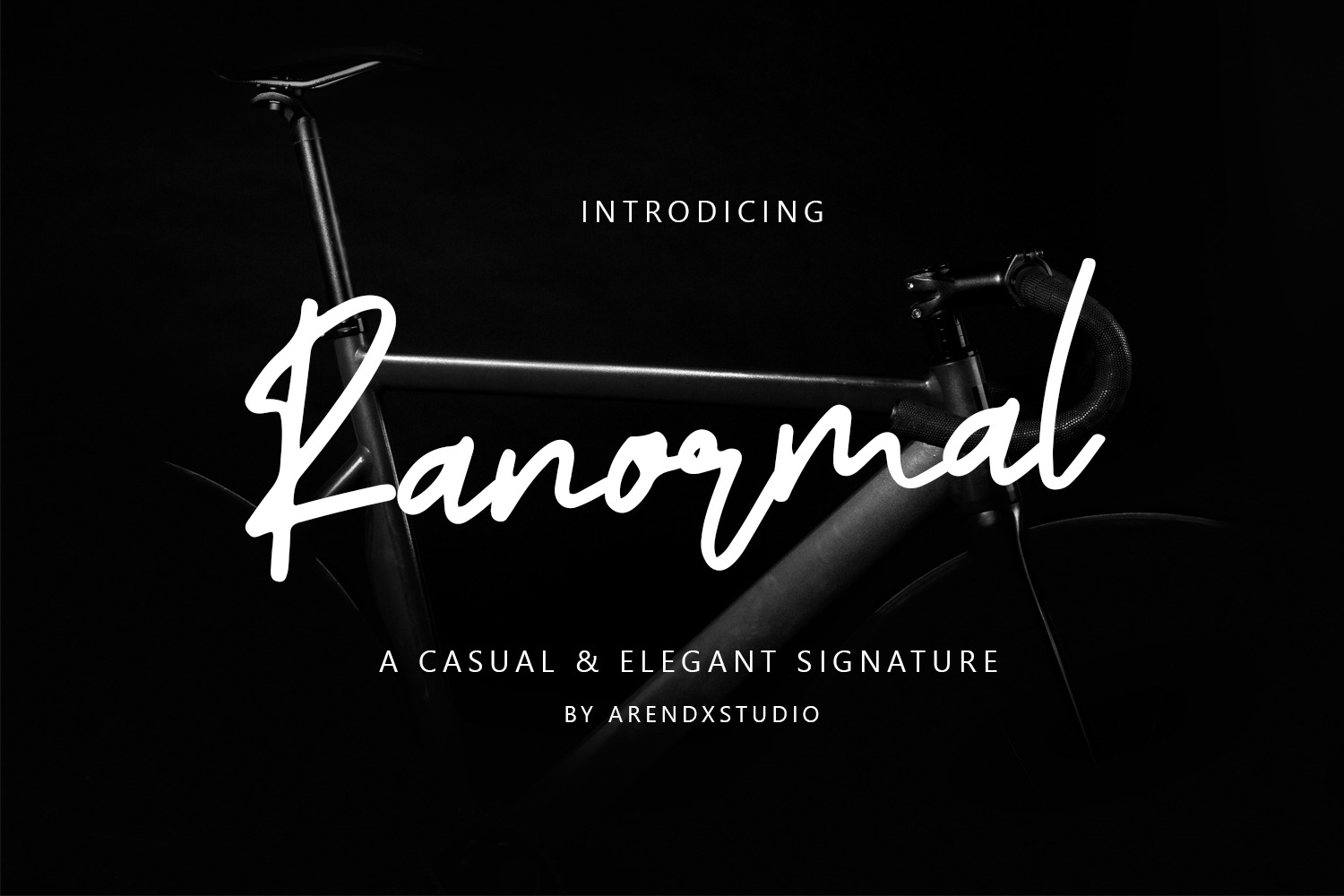
Ranormal Typeface Signature
Introducing our newest Ranormal Typeface Signature
Ranormal Typeface Signature is made as elegant as possible for the use of your design project
Ranormal offers a variety of design projects, including logos & amps, branding, wedding designs, social media posts, advertisements, product designs, magazines and more.